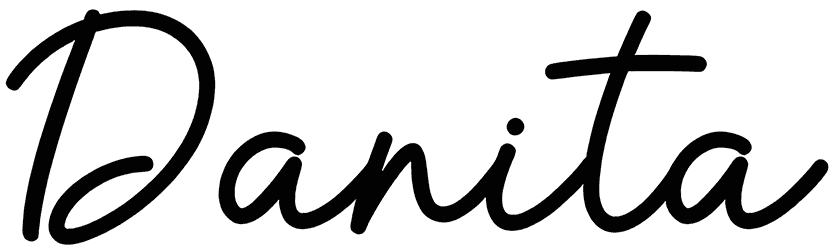
Danita Font
Once you get a taste of the perfect combination of friendliness and exquisite style offered by Danita, you’ll be using it regularly after a while. After all, how can you have such an eye-pleasing cursive font in your toolkit and pick something else for your branding typography?
Let’s just say that Danita is exactly the kind of sweet handwritten font that’ll come in handy when designing your spring posters, invitations, postcards, sundress logos, and so many other designs like these.